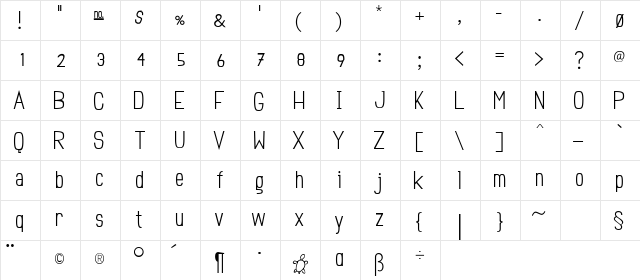
Einzine Regular Font Preview
Einzine Regular
Design Context for Einzine Typeface
Einzine takes a measured approach to typography — its balanced proportions and neutral character make it a reliable workhorse for both digital and print work.